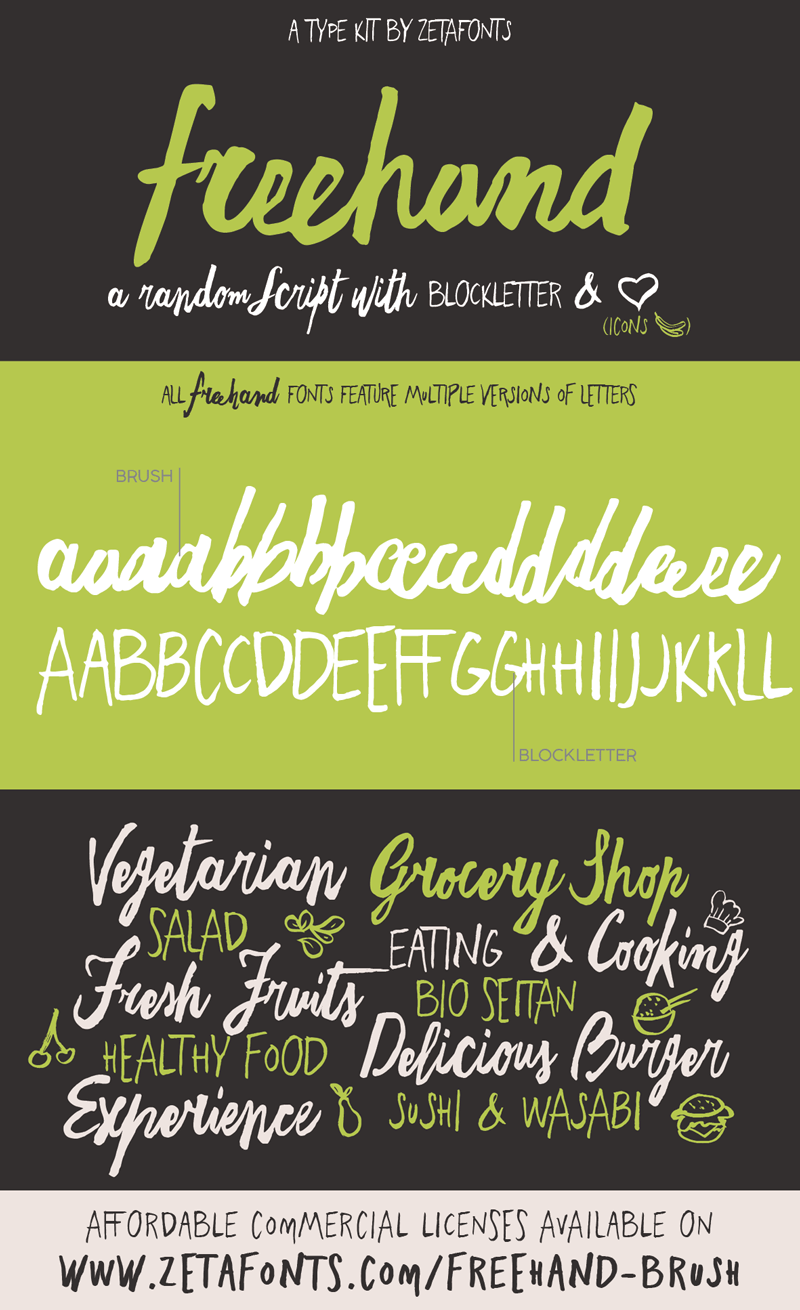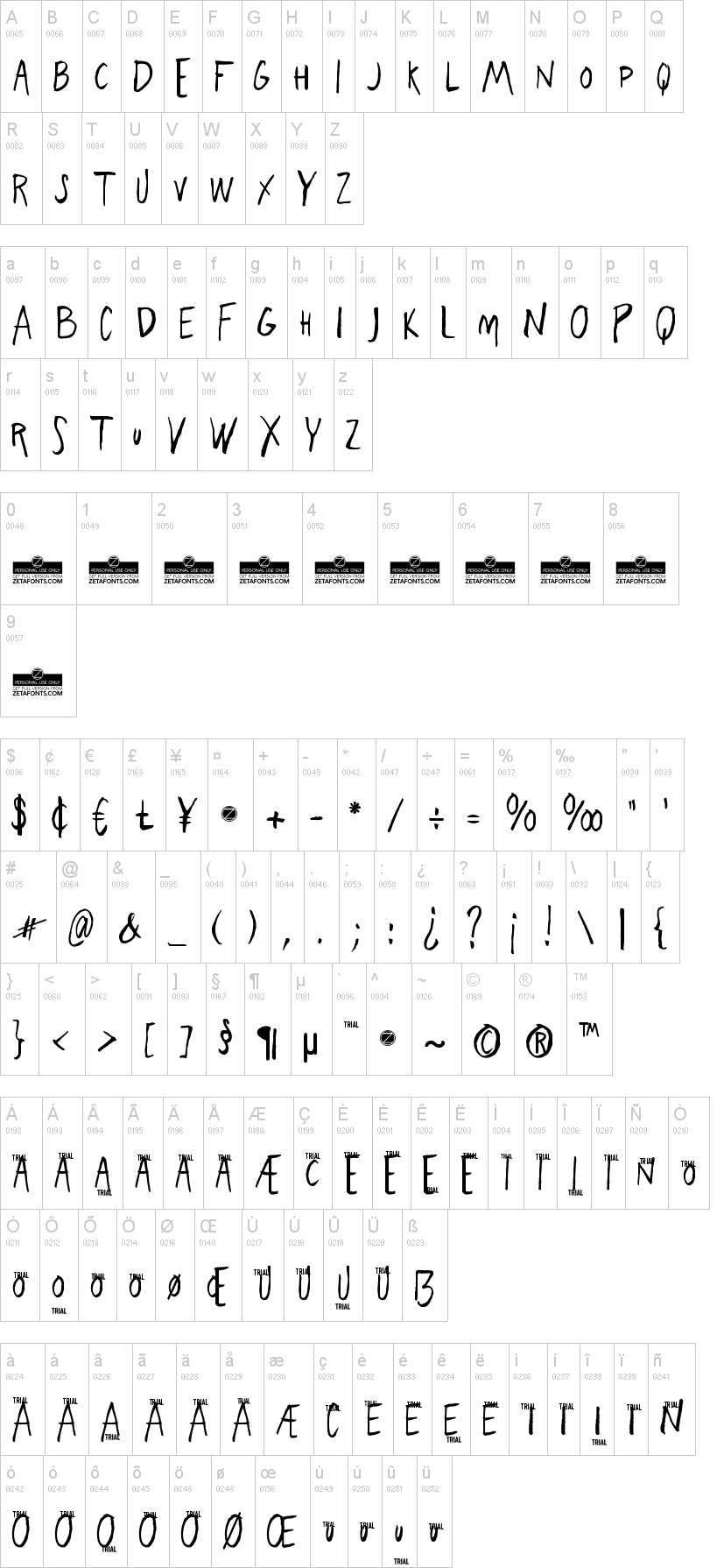
Freehand is a type system designed by Debora Manetti and Francesco Canovaro to emulate the natural appearance of handmade brush writing. Open type ligature substitutions are used to randomly alternate between different versions of each character to give the final output a realistic, uneven look.
The main typeface of the system is a wide freestyle brush cursive, featuring over four hundreds of alternate version for characters and double letter ligatures.
A "brush easy" version is included without the substitutions if you need more consistent look in your design and better control over letter variation through the glyph panel.
The two freehand brush weights are complemented by two sets of icons of matching style, one for ui design with navigation icons and one with food icons.
The system also includes a blockletter family in two weights, to be used together with the other fonts to create variation and contrast in your design.
Freehand covers over 40 languages that use the Latin alphabet, with a full range of accents and diacritics.